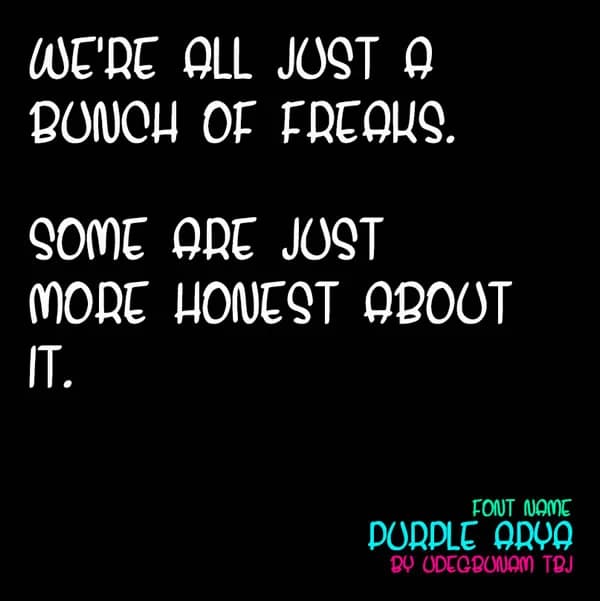
About Purple Arya Font
Purple Arya Font by TBJ Ohab is a flowing contemporary script that channels the warmth of authentic hand-lettering while maintaining refined visual appeal. Built on organic, natural letterforms, this typeface brings both personality and sophistication to designs that demand genuine character without sacrificing polish.
The handwritten style shines in applications where authentic expression truly matters. Designers turn to it for wedding stationery suites, personalized greeting card collections, luxury cosmetics brand identities, and artisanal product labeling for boutique retailers. The font's graceful curves and expressive character prove particularly effective for creating custom vinyl decals, heat-transfer graphics for apparel, attention-grabbing social media announcement posts, and sophisticated gift packaging for independent makers.
Purple Arya Font is a script font that shines as a display or heading face. Pair it with a clean sans-serif or serif font for body text β the contrast creates a clear hierarchy while the two styles stay balanced and easy to read.